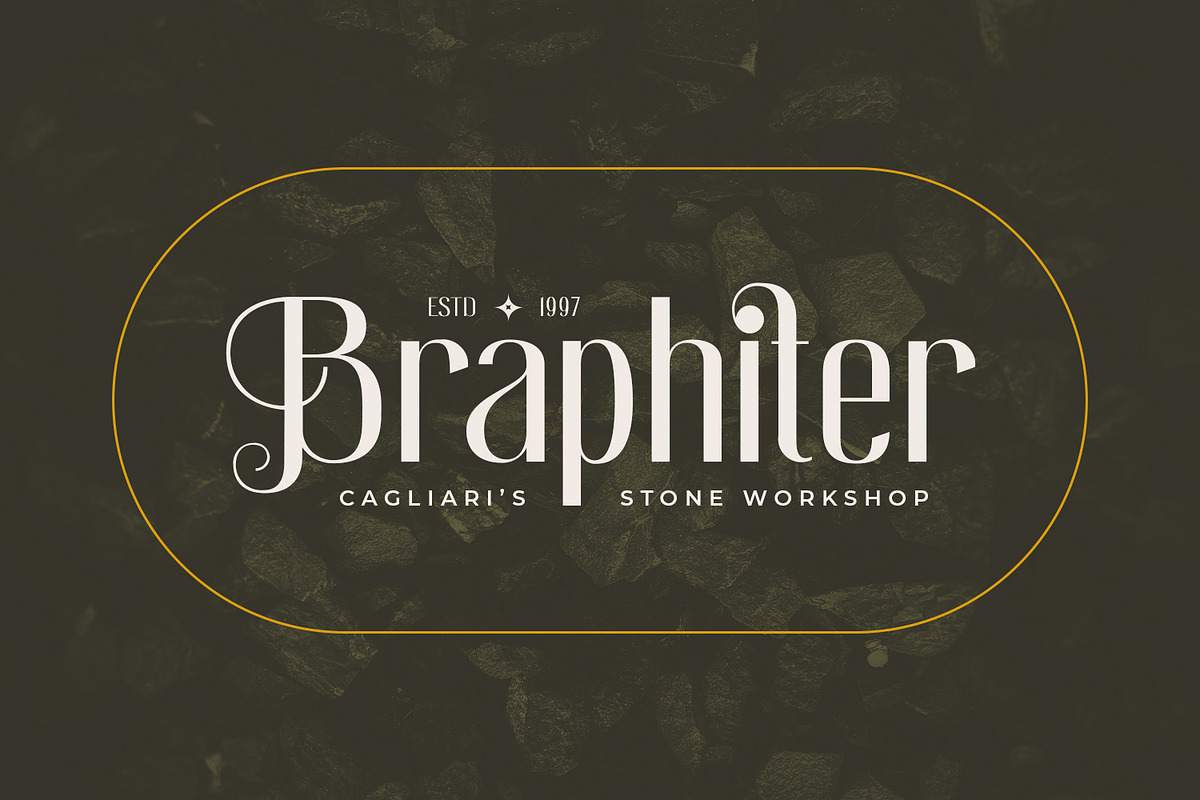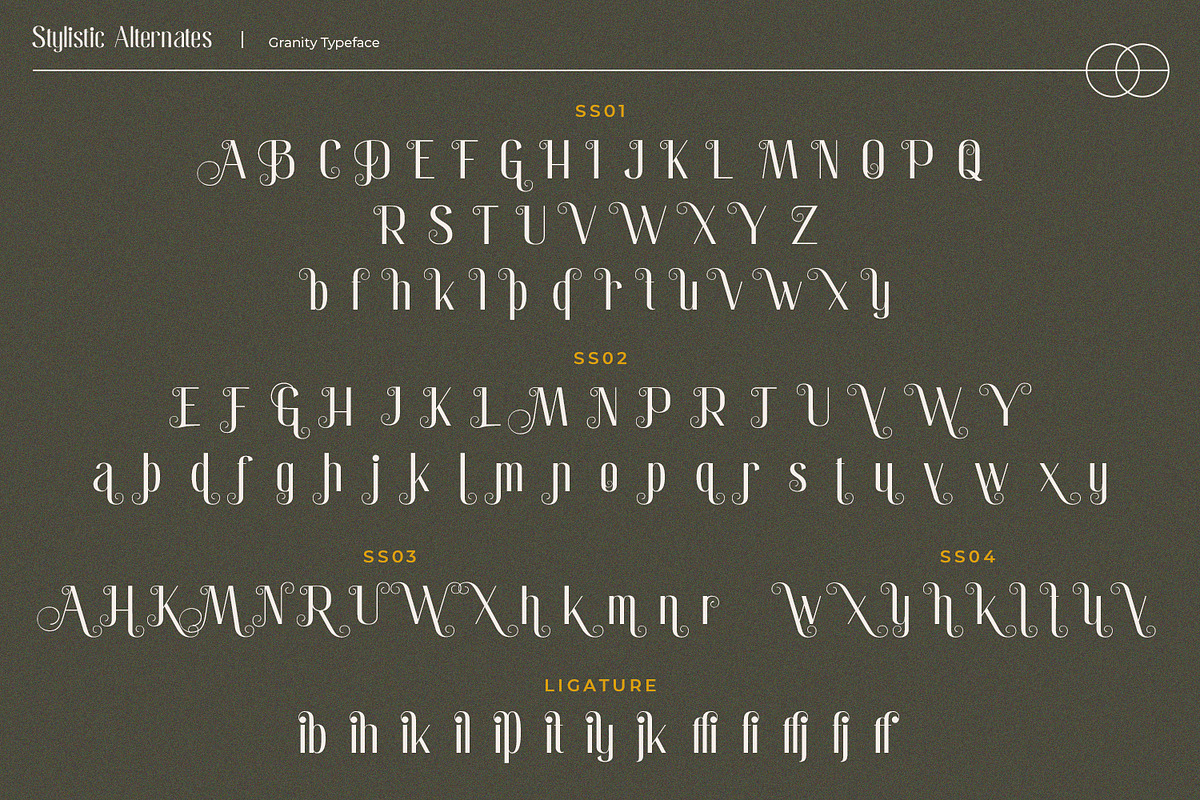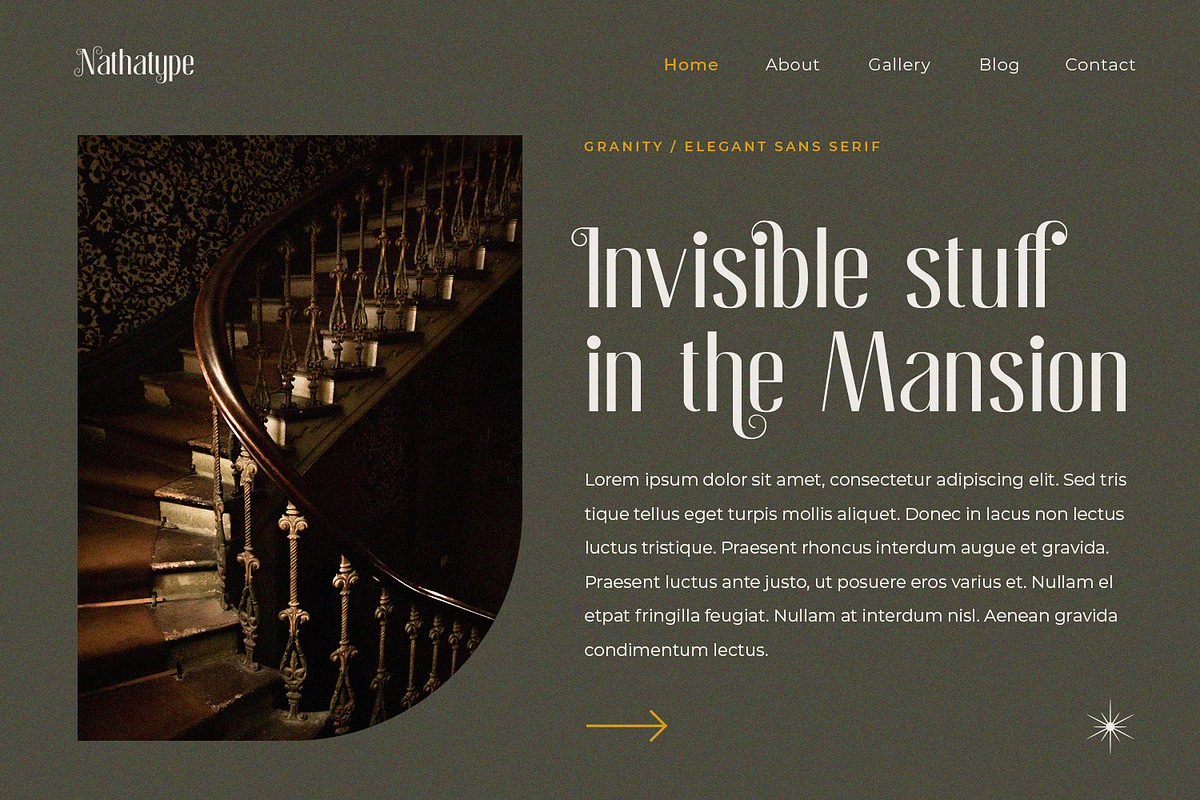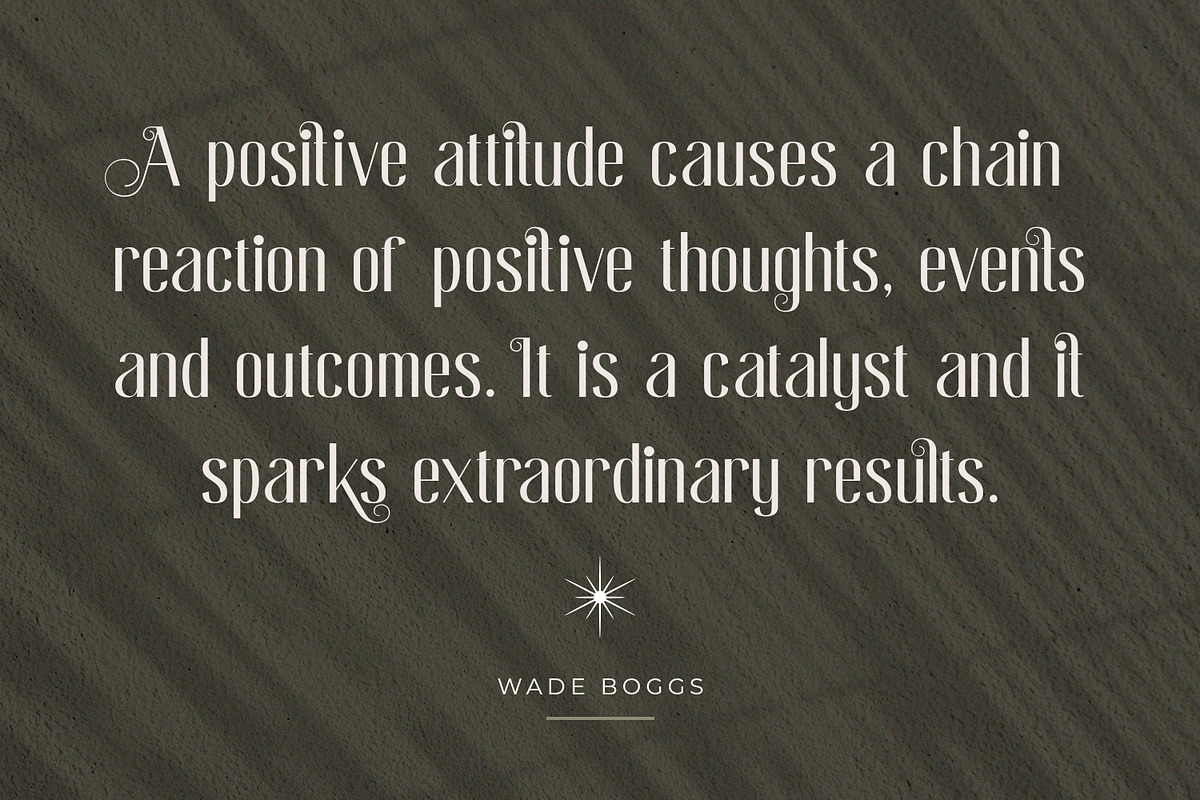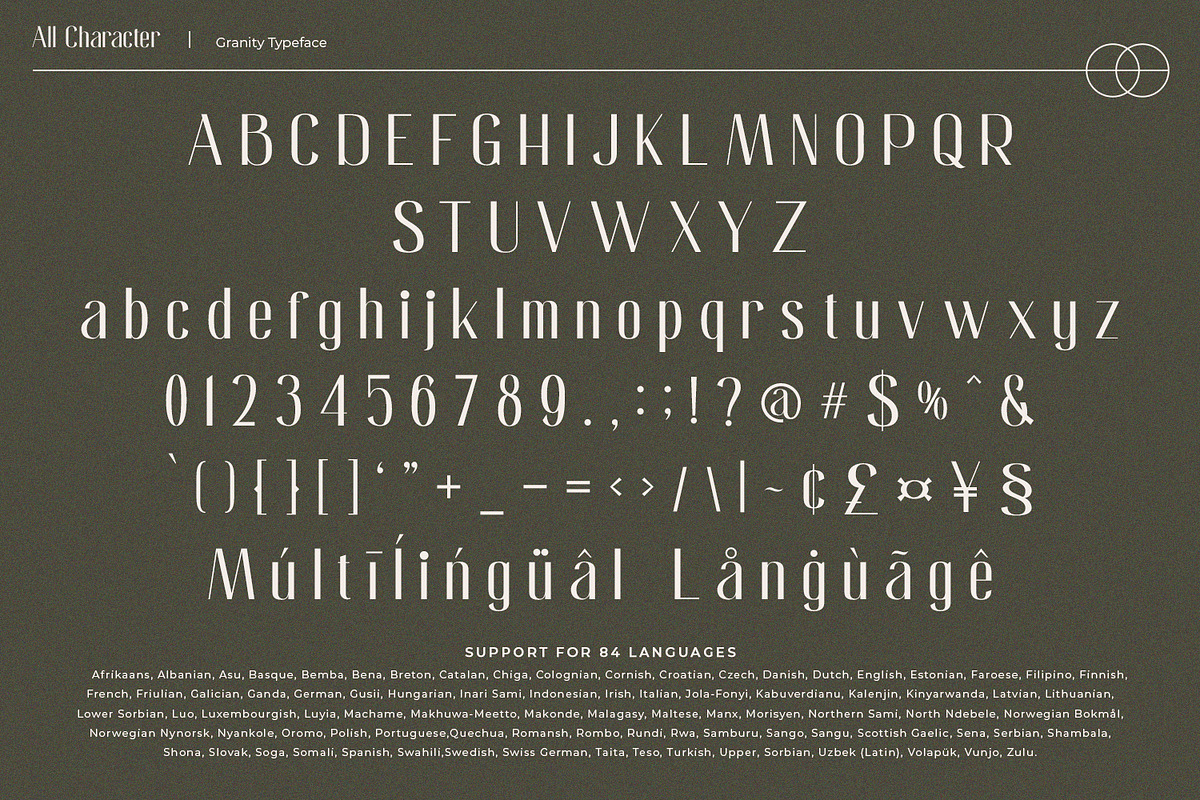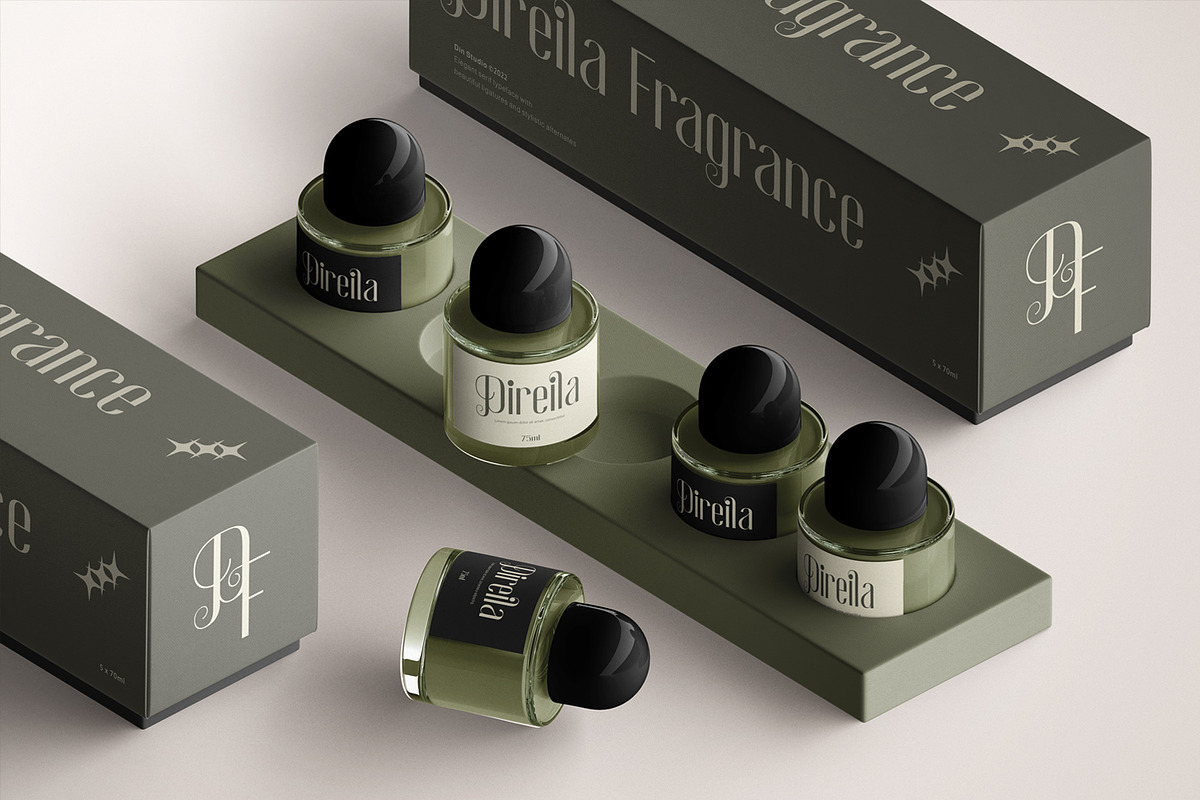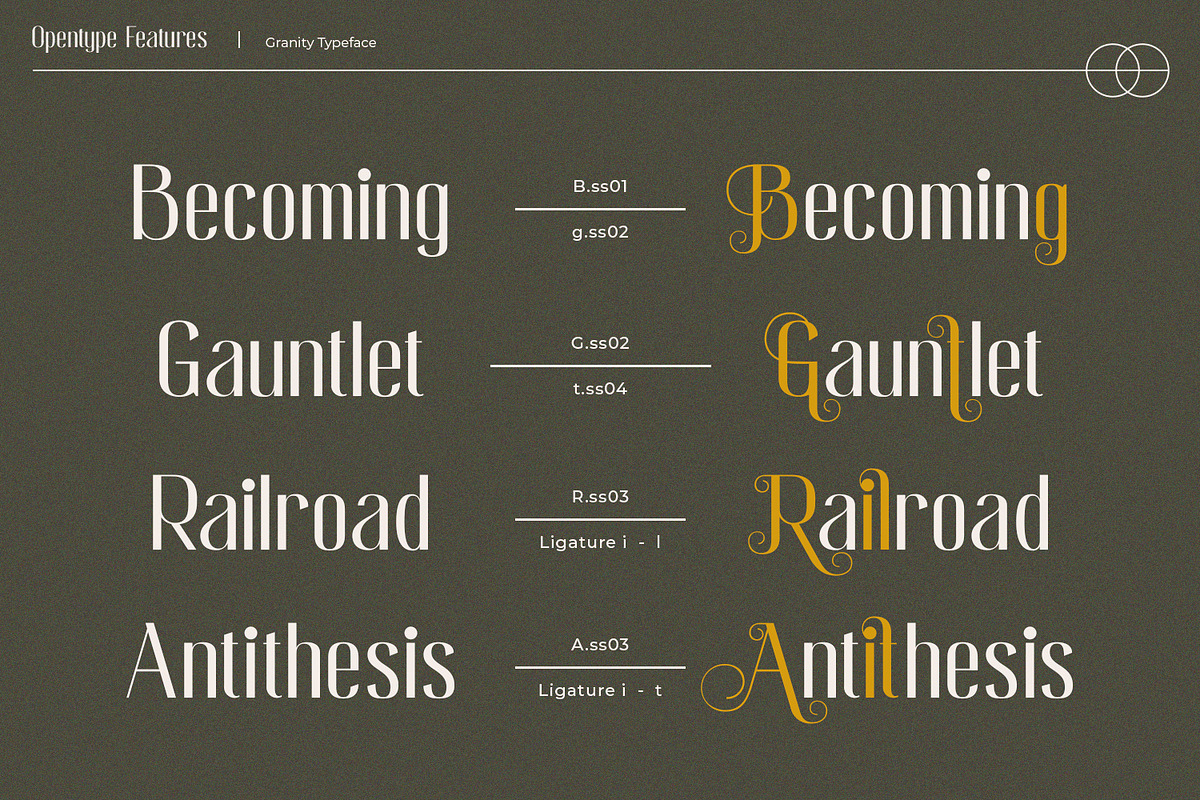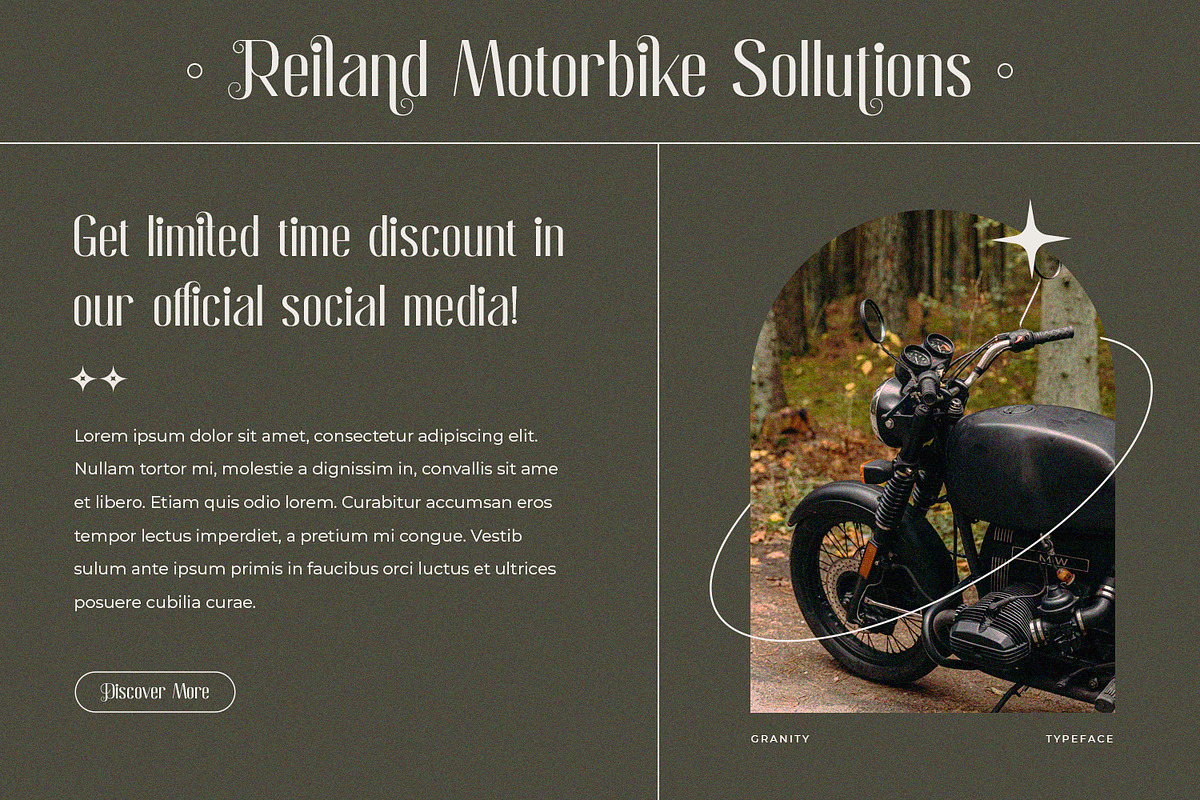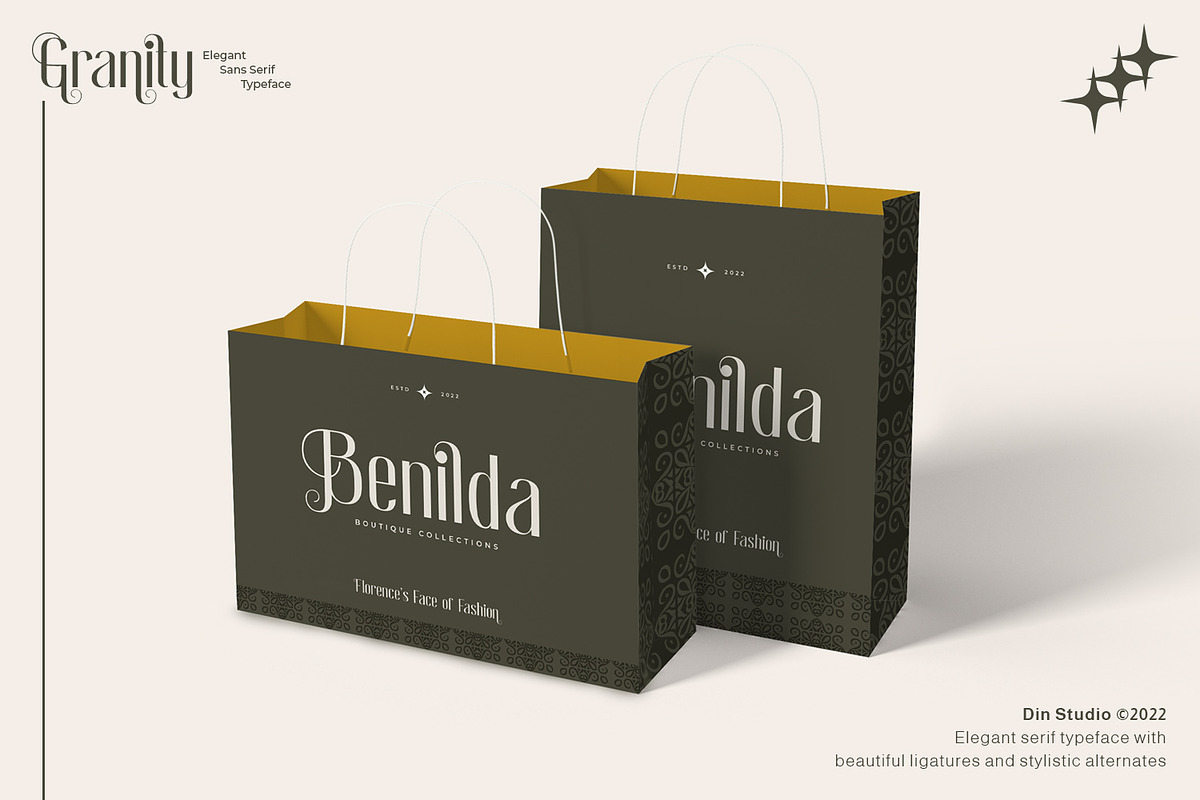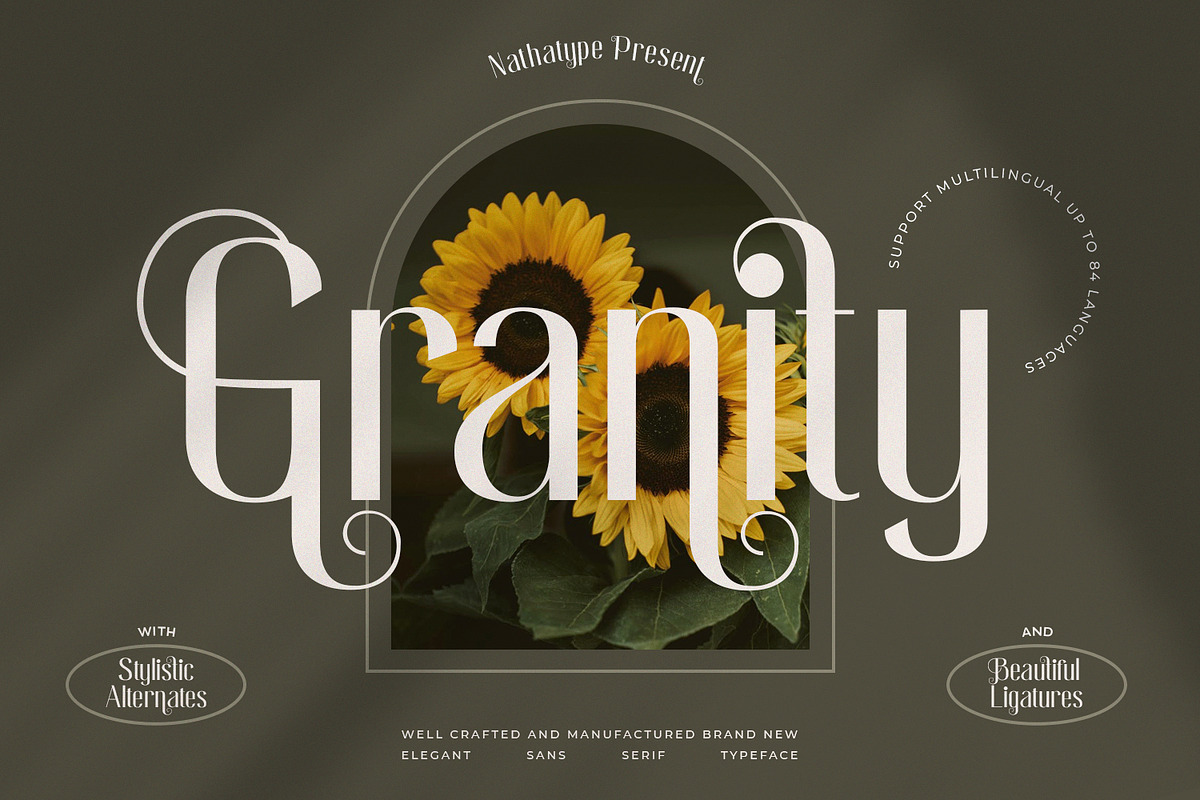
Granity
Do you to make your branding spark? Are you dreaming of creating headings that stand out and inspire creativity, imagination, modernity, and endless fun? Looking for an elegant and stylish font? We've got what you want.
Granity- A Sans Serif Font
Granity is a sans serif font that very suitable for market designs being developed today, this font has a trendy, natural and soft style. You can take advantage of every moment. The great way to highlight your design or project. So beautiful on invitation like greeting cards, logos, fashion, lookbook, marketing promotions. branding materials, business cards, quotes, posters, and more.
- Stylistic Set